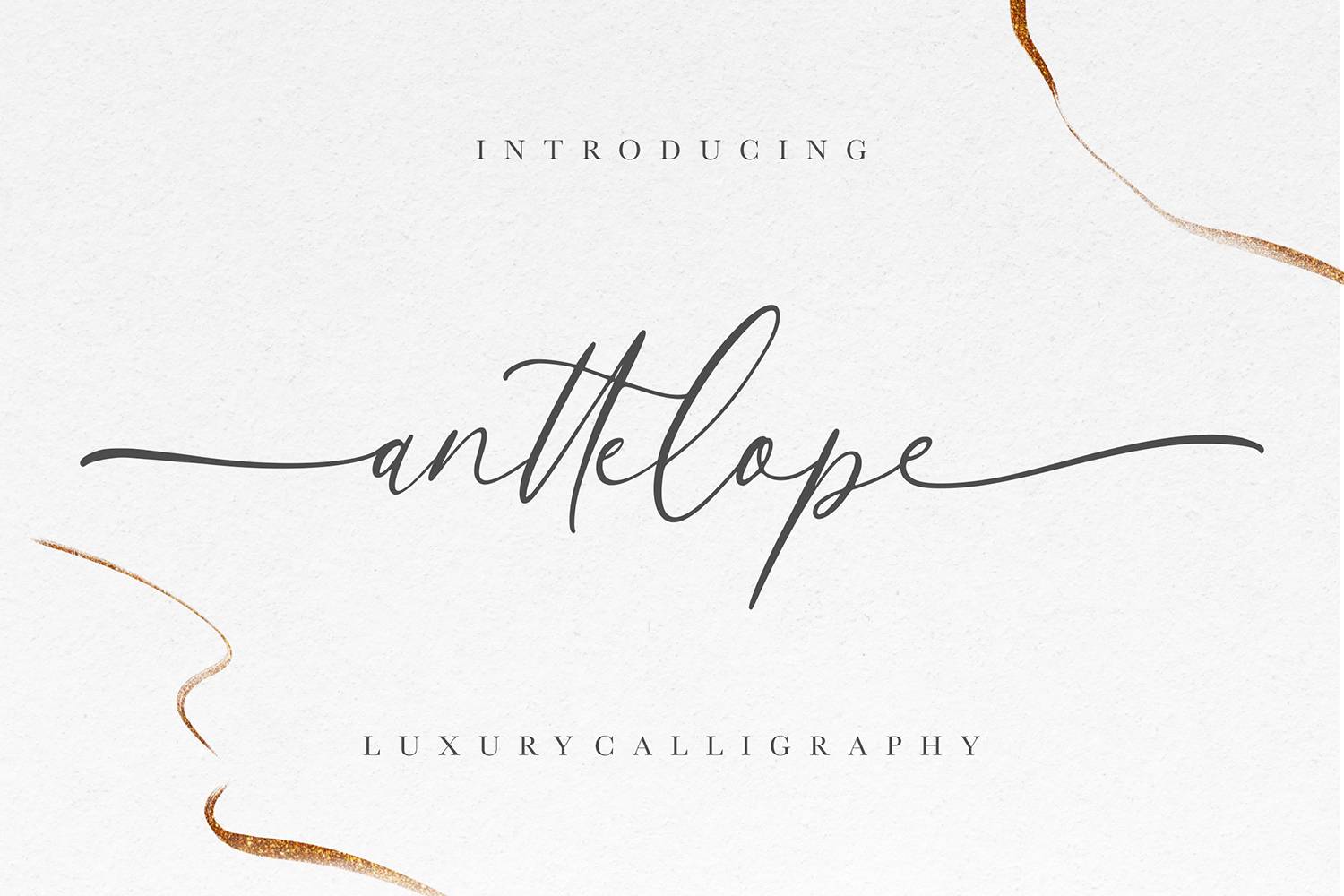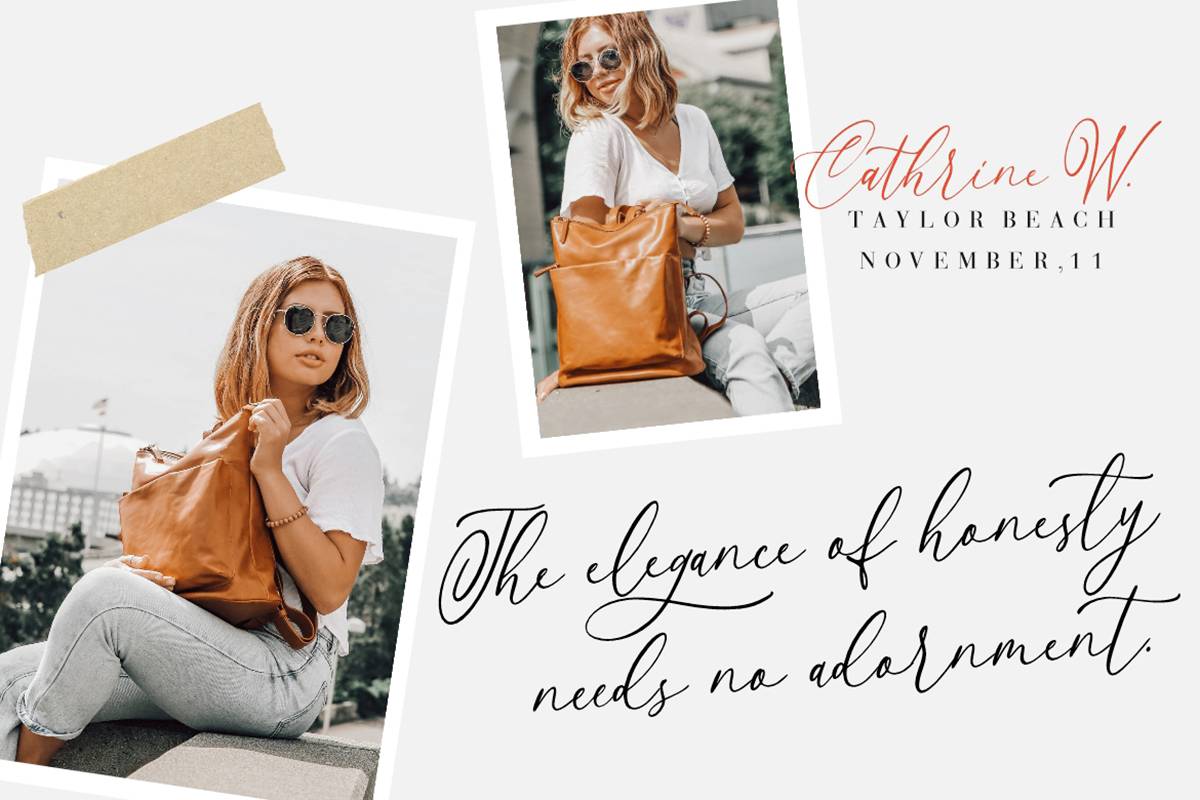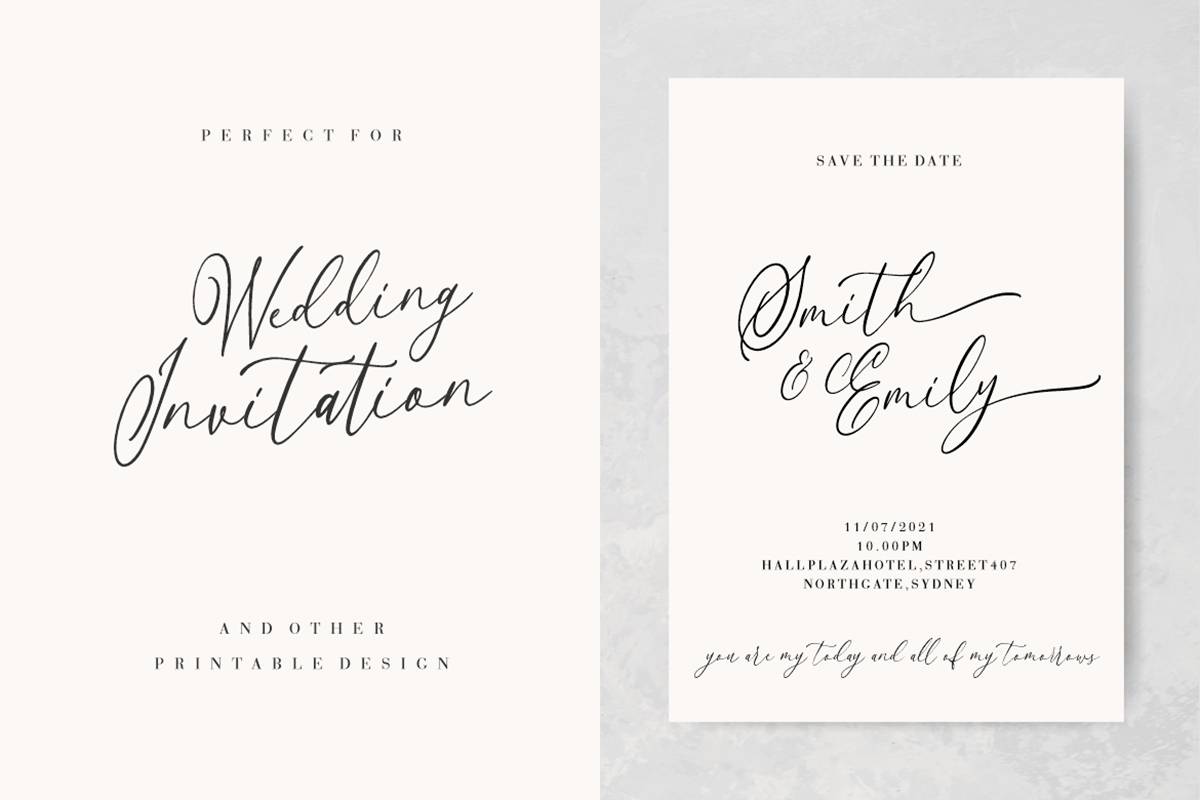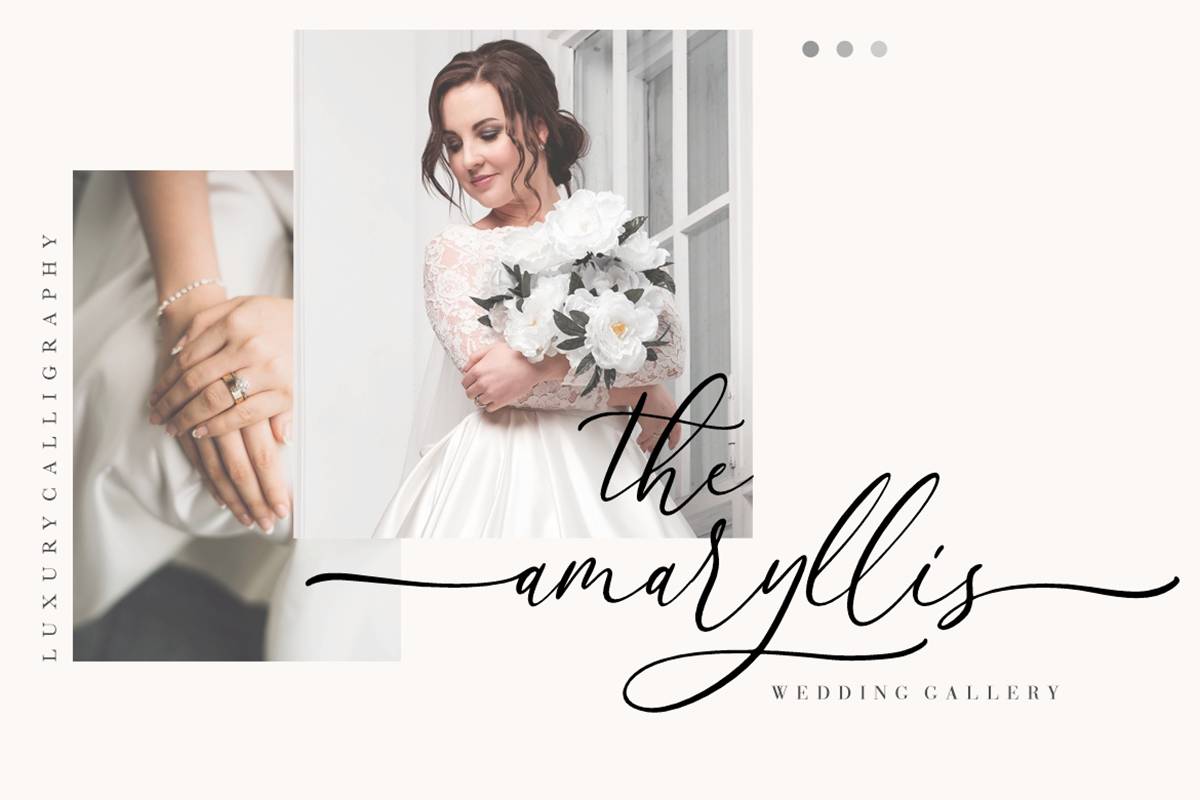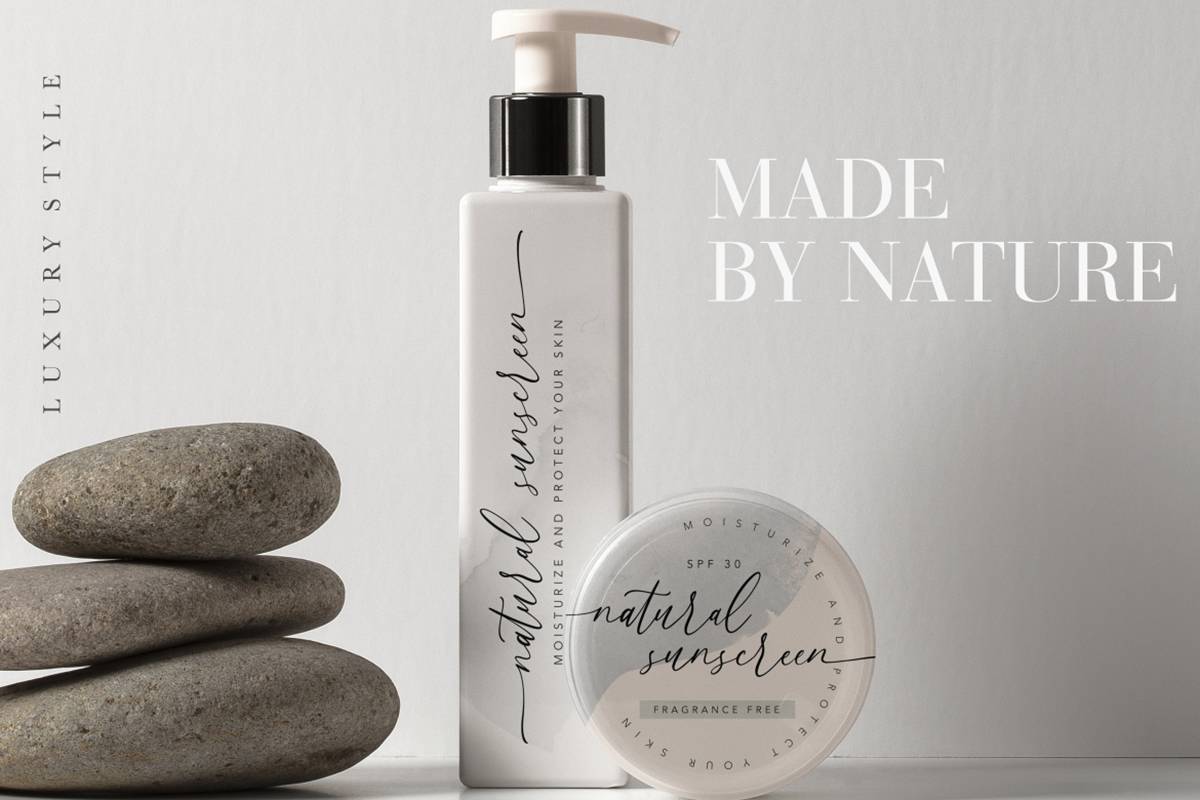
Anttelope is an elegant, delicate script font featuring thin, flowing strokes with a graceful, handwritten style. Its slender letterforms and refined curves evoke a sense of sophistication and charm, making it ideal for luxury branding, wedding invitations, and stylish editorial designs. This font works best in headlines or accent text where its decorative flair can shine without compromising readability.
About Anttelope Font